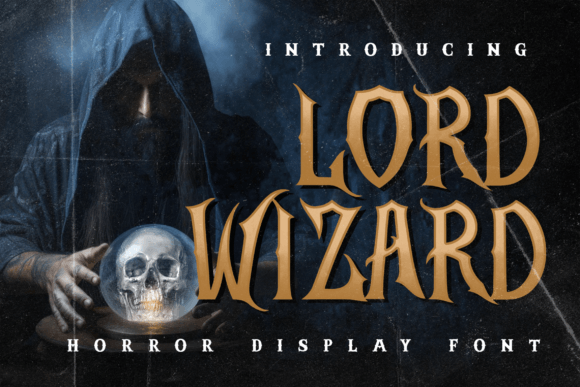
Lord Wizard Font: Unleashing the Magic of Blackletter Typography
The world of typography is vast and wondrous, with a multitude of fonts to choose from, each with its unique character and charm. Among these, the Lord Wizard Font and its sibling, the Lord Wizard Metal Horror Font, stand out as distinct, highly detailed, and chic Blackletter fonts. These fonts are perfect for creating exquisite retro-urban designs, tattoo business branding, logos, vintage designs, and more. In this article, we’ll delve into the world of Lord Wizard Fonts, exploring their features, uses, and the magic they bring to the world of typography.
What is Lord Wizard Font?
Lord Wizard Font is a Blackletter font that exudes an air of mystery and elegance. Its intricate details and classic design make it an excellent choice for those looking to add a touch of sophistication to their designs. The font’s unique blend of traditional and modern elements sets it apart from other Blackletter fonts, making it a versatile choice for various design projects.
Lord Wizard Metal Horror Font: A Distinct Variation
The Lord Wizard Metal Horror Font is a variation of the original Lord Wizard Font, with a darker, more aggressive tone. This font is perfect for designs that require a bold, edgy look, such as tattoo business branding, horror-themed designs, or metal music-related projects. The Metal Horror Font adds a new level of depth and complexity to the original font, making it an excellent choice for designers looking to push the boundaries of their creativity.
Design Applications for Lord Wizard Fonts
Lord Wizard Fonts are incredibly versatile and can be used in a wide range of design applications, including:
- Retro-urban designs: The Lord Wizard Fonts’ unique blend of classic and modern elements makes them perfect for creating retro-urban designs that require a touch of nostalgia and sophistication.
- Tattoo business branding: The bold, edgy look of the Lord Wizard Metal Horror Font makes it an excellent choice for tattoo business branding, helping to create a strong, memorable identity.
- Logos: The distinctive design of Lord Wizard Fonts makes them ideal for creating logos that require a touch of elegance and sophistication.
- Vintage designs: The classic design of Lord Wizard Fonts makes them perfect for creating vintage-inspired designs that require a touch of nostalgia and authenticity.
Typography Tips for Using Lord Wizard Fonts
When working with Lord Wizard Fonts, here are some typography tips to keep in mind:
- Pair with contrasting fonts: Lord Wizard Fonts work best when paired with contrasting fonts that provide a clear visual hierarchy.
- Use bold and italic variations: The bold and italic variations of Lord Wizard Fonts can add depth and complexity to your designs.
- Experiment with color: Lord Wizard Fonts can be used in a variety of colors, from metallic tones to bold brights.
Finding Inspiration with Lord Wizard Fonts
Lord Wizard Fonts can be used in a wide range of design projects, from editorial design to branding and advertising. Here are some inspiring examples of how you can use Lord Wizard Fonts:
- Music branding: Use Lord Wizard Fonts to create bold, eye-catching branding for musicians, music festivals, or concerts.
- Fashion design: Incorporate Lord Wizard Fonts into your fashion designs, such as t-shirt designs, posters, or advertisements.
- Editorial design: Use Lord Wizard Fonts to add a touch of elegance and sophistication to your editorial designs, such as magazines, newspapers, or books.
In conclusion, Lord Wizard Fonts are a powerful tool for designers looking to add a touch of magic to their designs. With their unique blend of classic and modern elements, these fonts are perfect for creating exquisite retro-urban designs, tattoo business branding, logos, vintage designs, and more. Whether you’re a seasoned designer or just starting out, Lord Wizard Fonts are sure to inspire your creativity and take your designs to the next level.